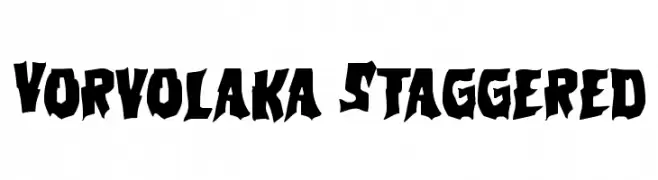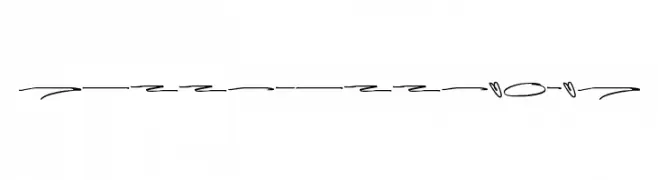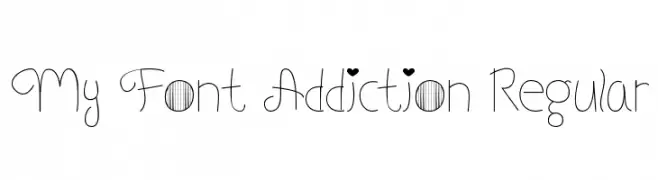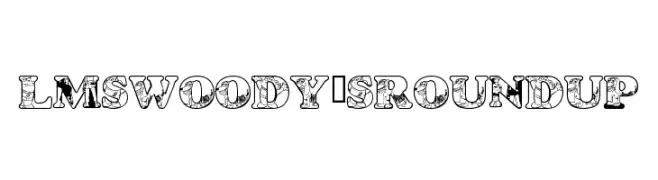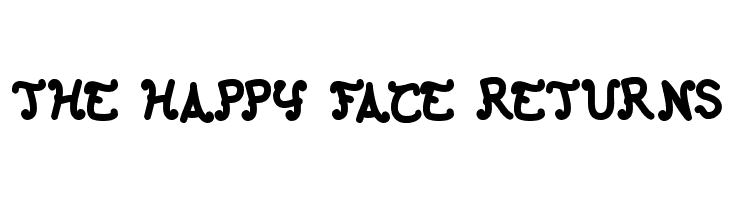
A bold, tall, and narrow font with high contrast, perfect for impactful headlines.
Expressive, handwritten script with bold, sweeping strokes.
A bold, jagged font with a horror-themed, staggered design.
A whimsical and decorative style with playful swashes and flourishes.
A bold, playful script font with smooth, flowing curves and a hand-drawn appearance.
A modern, handwritten script font with elegant, flowing letters.
A playful, handwritten font with thin, elongated characters and whimsical elements.
A whimsical and artistic collection of decorative characters and illustrations.
A playful, decorative font with cowboy-themed illustrations inside bold letters.